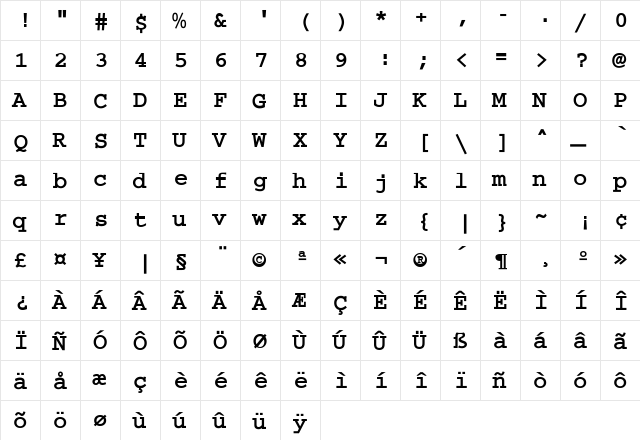
Mono-Bold-Bold Regular Font Preview
Mono-Bold-Bold Regular
Mono-Bold-Bold Regular Font Details
Design Context for Mono-Bold-Bold Typeface
Mono-Bold-Bold uses fixed-width spacing throughout, giving it the structured, systematic character associated with coding environments and technical documentation. Its bold stroke weight gives it real presence on the page.